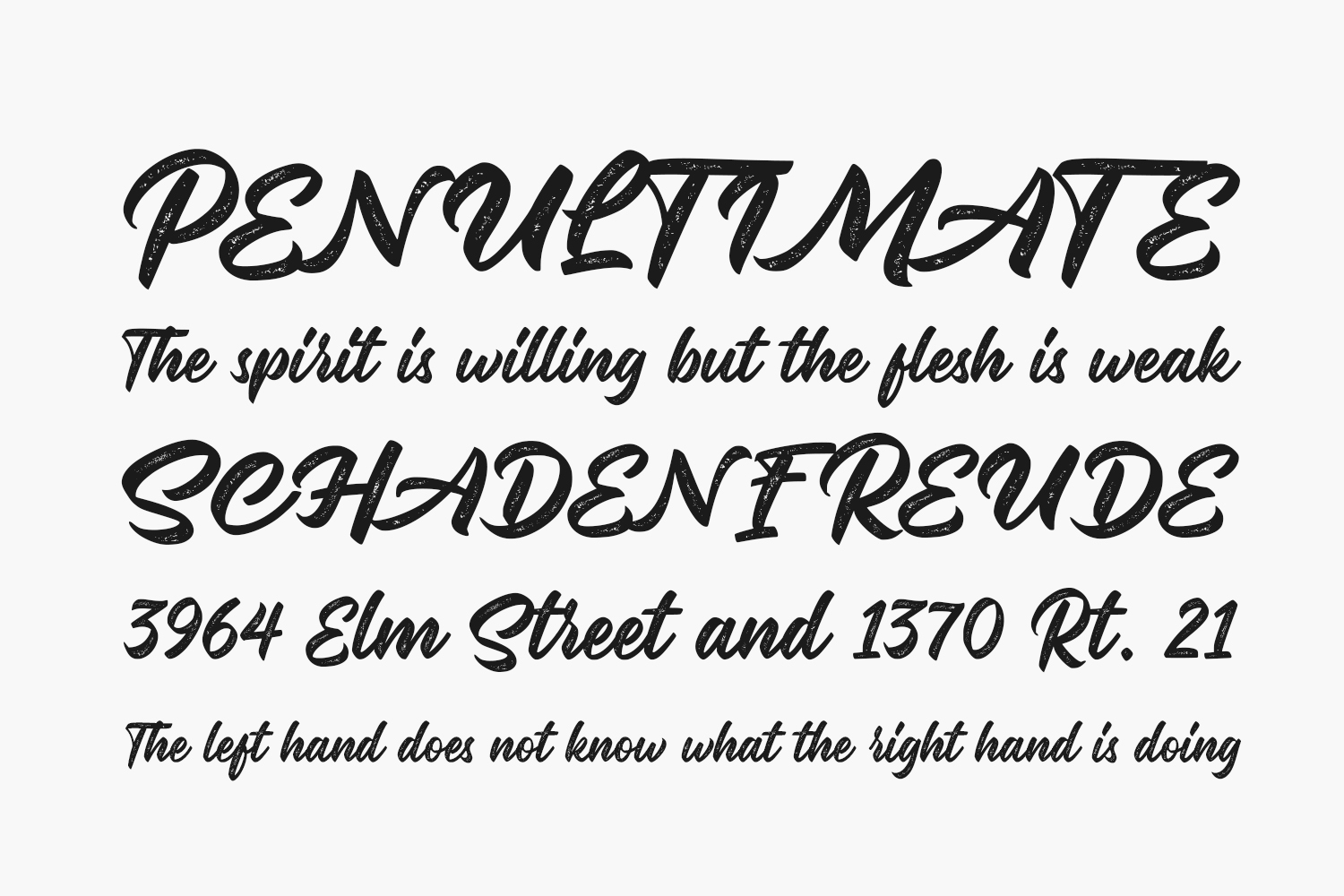
Malinsha Free Font sounds like a lovely handwritten font with a vintage style. Handwritten fonts can add a personal and charming touch to various design projects. Whether you’re creating thank you cards, quotes, greeting cards, logos, or other designs, using a font like Malinsha can enhance the overall aesthetic and convey a sense of elegance and nostalgia. Malinsha Free Font is free for personal use only. Please purchase the full version for commercial use.
Designed by Arterfak Project